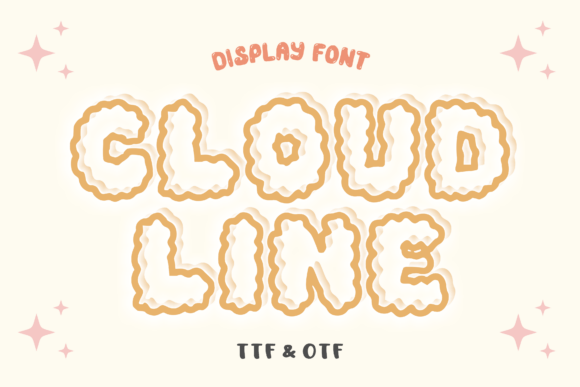
Cloud Line Font: A Playful Display Font for Cute Designs
About the Cloud Line Font
Discover the charm of Cloud Line Font. This font is a perfect blend of modern aesthetics and classic appeal. Cloud Line is a line font that exudes energy and playfulness. With unique bumps and lively characters, this font adds a touch of baby charm. Perfect for comic, poster, or sticker designs, Cloud Line brings a playful and fun feel to your Designs, making it perfect for projects that require a childish/baby style. Get ready to have fun and let your creativity soar with the enchanting charm of Cloud Line!
Cloud Line’s playful energy makes it ideal for children’s books, playful branding for toys or snacks, and eye-catching posters or stickers. Its informal nature, however, makes it unsuitable for body text or situations requiring high readability, such as website UI or long-form content.
Pairing Cloud Line with a clean sans-serif like Open Sans for supporting text creates a balanced contrast. For a more whimsical feel, consider pairing it with a rounded geometric sans-serif. Alternatively, a classic serif like Garamond can add a touch of sophistication, tempering the font’s inherent playfulness.
The font’s overall personality is best described as cheerful and energetic, conveying a sense of fun and childlike wonder. It is particularly well-suited for brands targeting a young audience or projects emphasizing lightheartedness and approachability.
Cloud Line Font Usage Examples
Cloud Line Font Example